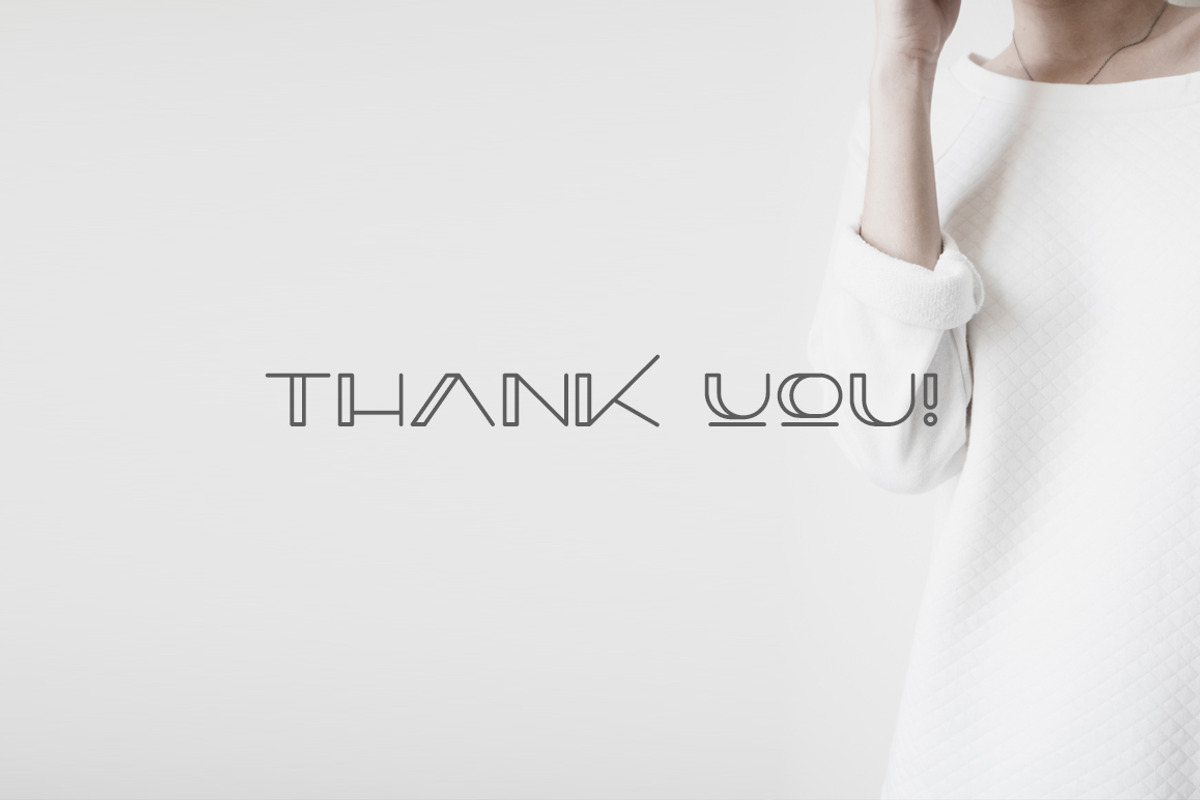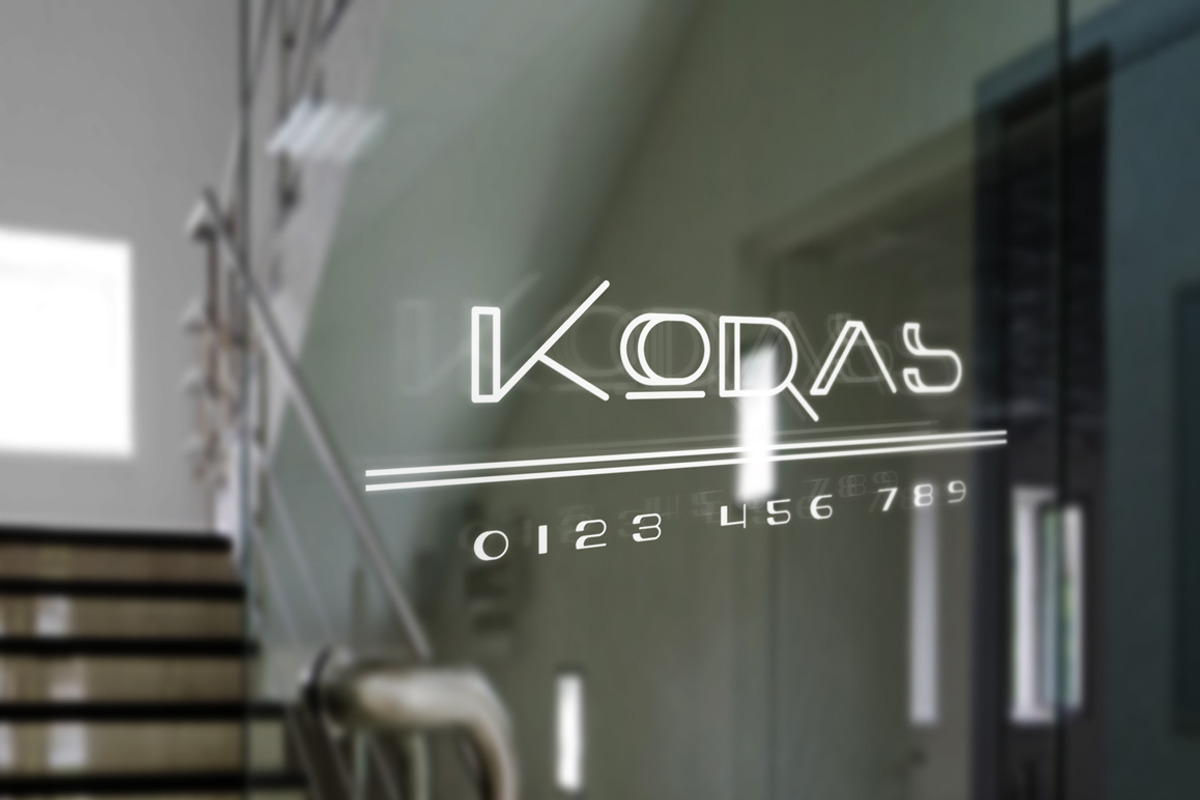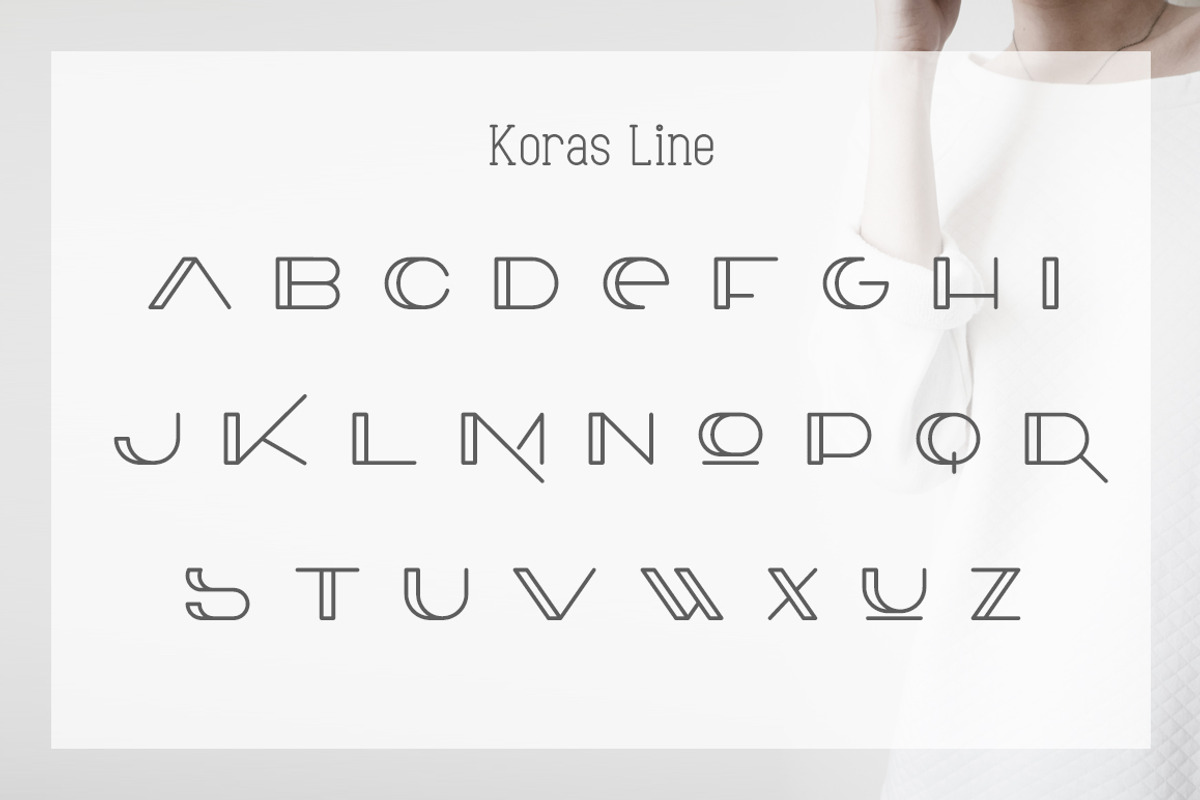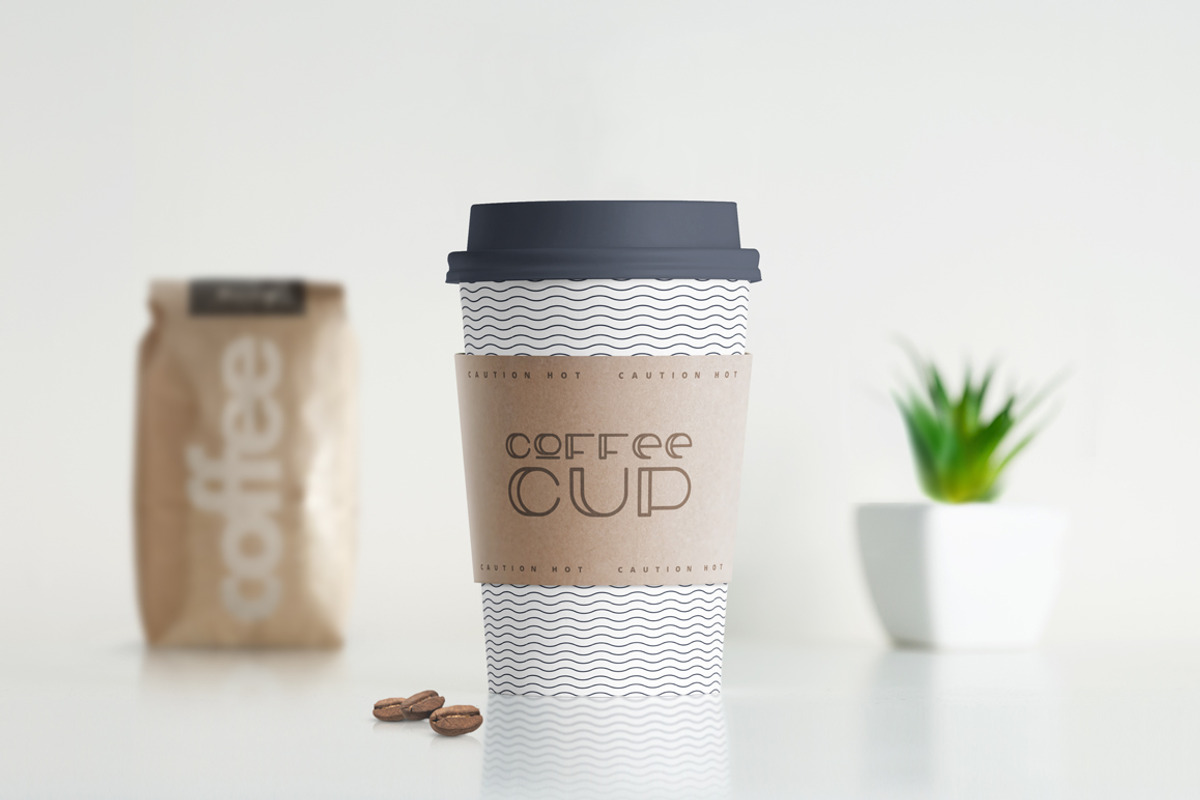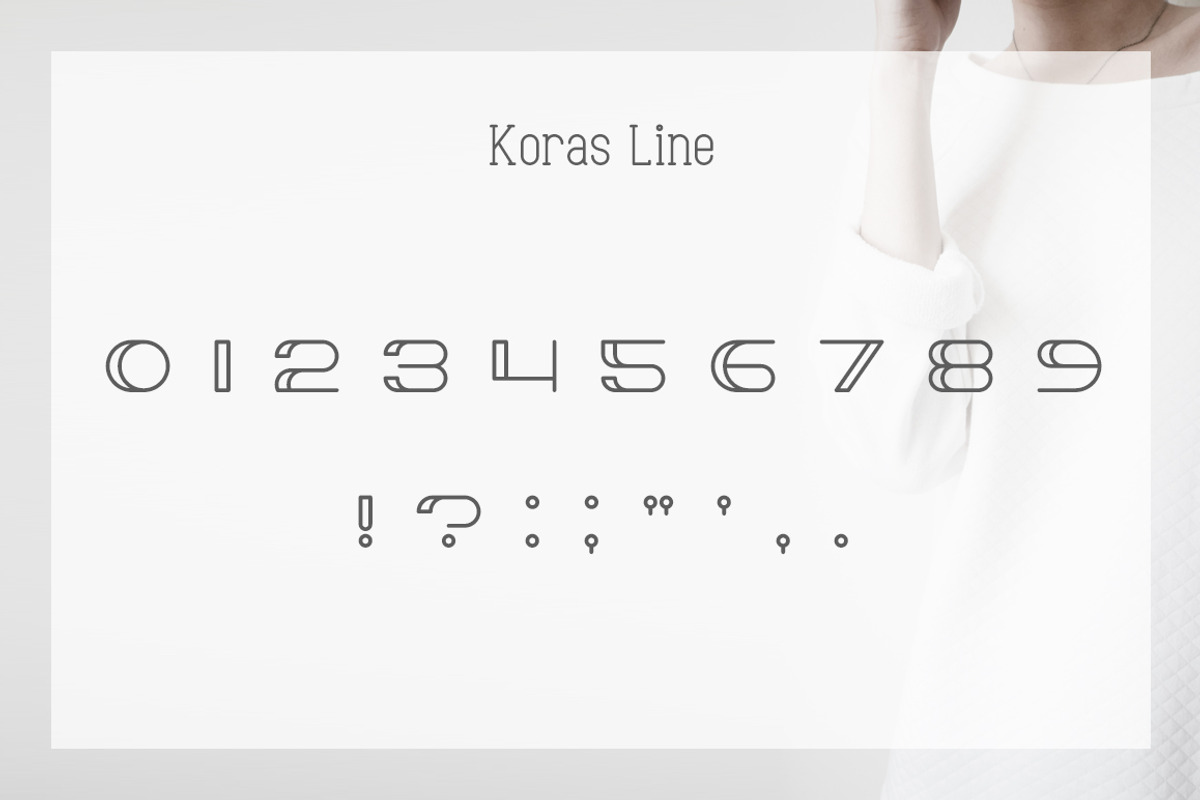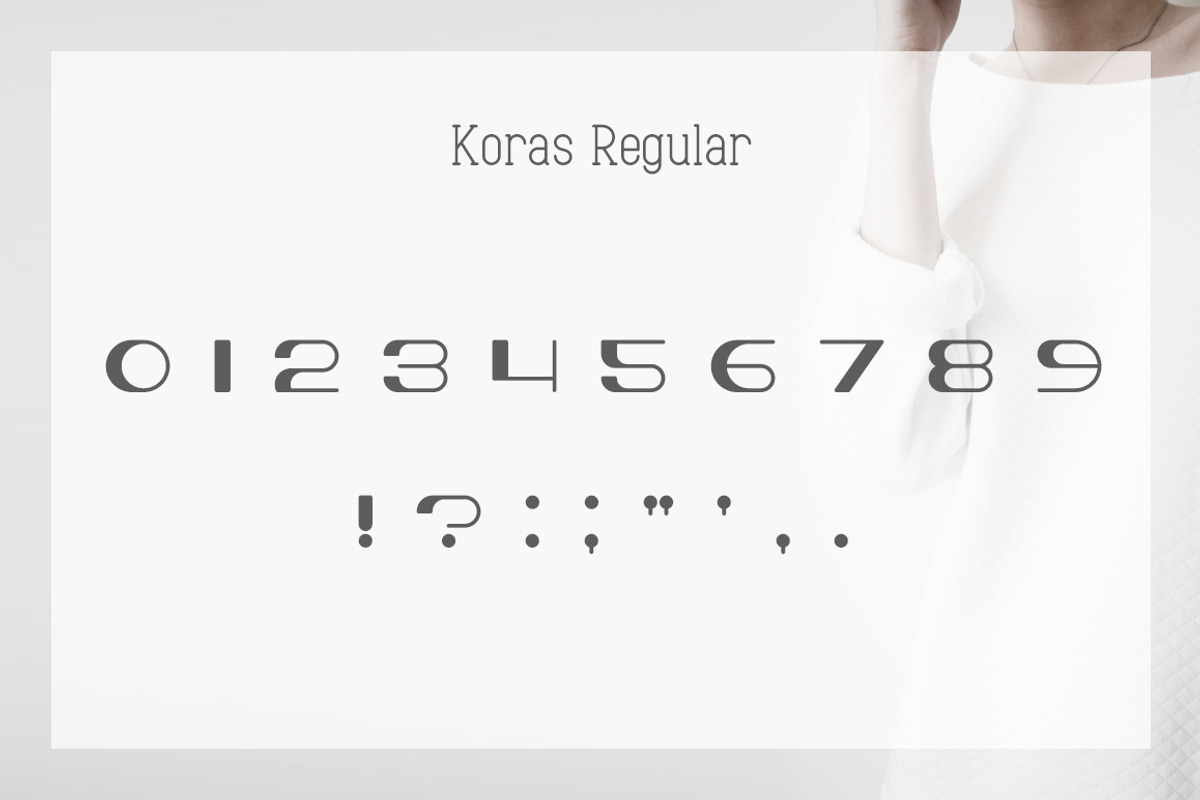
Koras Font
Koras Font is a unique minimalistic typeface.
Made for giving minimalistic titles. Koras packs a set of capitals, numbers and punctuation. Font for design greeting, prints, web design, invitation, business cards.
Koras Regular and Koras Line
Why Koras Font is worth a look
Koras Font by Alex Blogoodf fits naturally into Branding, posters, packaging, typography.